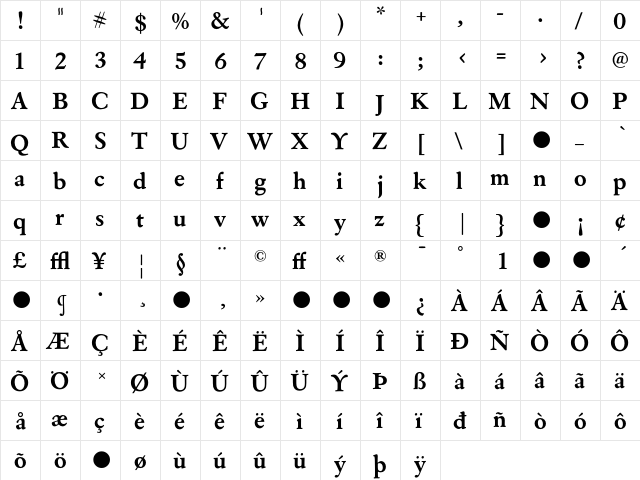
Eldorado Bold
Design Context for Eldorado Typeface
Eldorado takes a measured approach to typography — its balanced proportions and neutral character make it a reliable workhorse for both digital and print work. The heavy weight commands attention and anchors typographic hierarchies.
Pro Tip: Pair Eldorado with a font of contrasting weight or personality to build a more expressive typographic hierarchy.